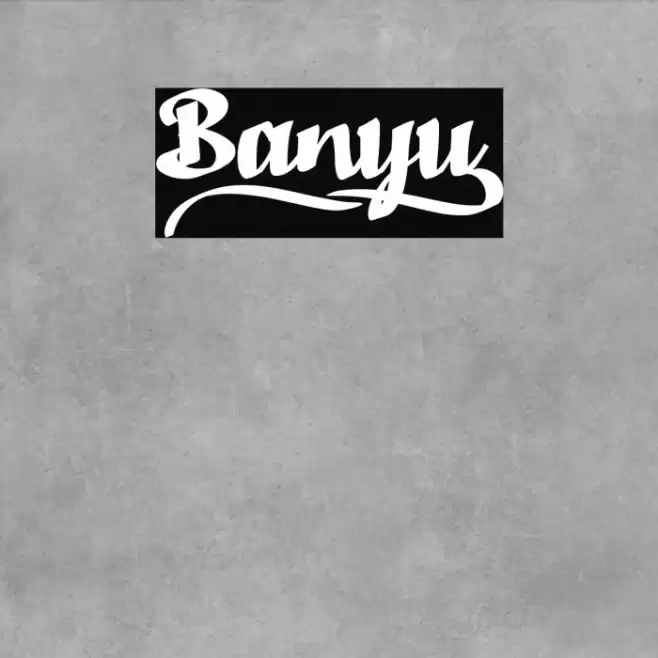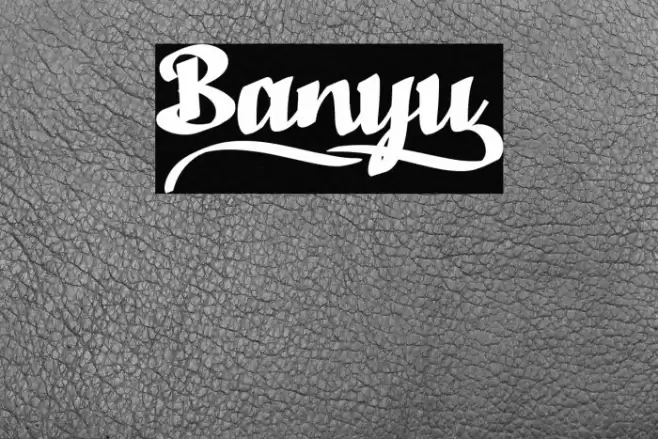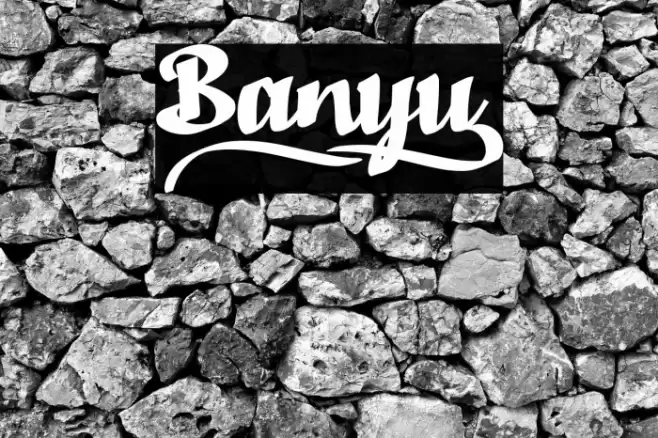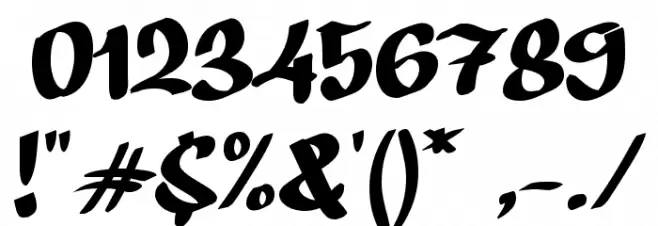
Banyu_ Font
Banyu_ Description
This font features a bold and dynamic script style, characterized by its thick, flowing strokes and a sense of movement. The uppercase letters are ornate and slightly condensed, while the lowercase letters maintain a consistent rhythm with a touch of flair. The numerals are bold and easily readable, complementing the overall style. Special characters are designed with the same attention to detail, making them suitable for decorative purposes. The font's energetic and expressive nature makes it ideal for projects that require a strong visual impact.
A bold, dynamic script font with flowing strokes and expressive style from Uncategorized fonts.
- Proposed Projects: Ideal for branding, posters, invitations, and any project that requires a bold, artistic touch.